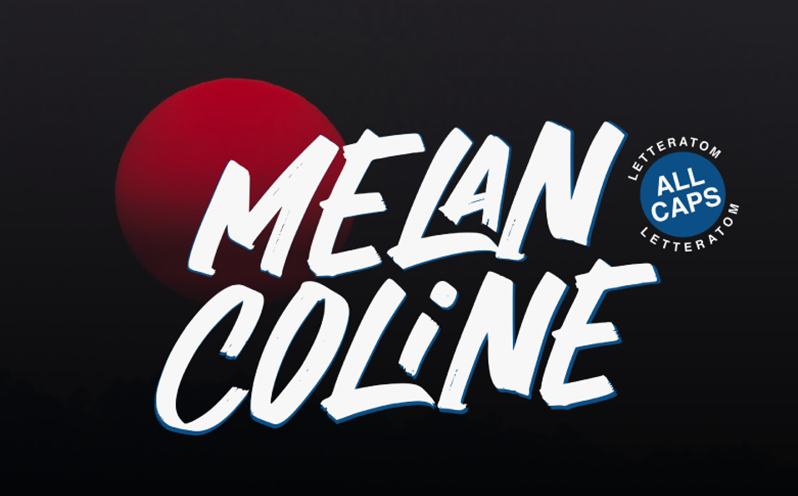
Font name: | Melancoline |
Author: | Kurniawan Eko |
Note by Kurniawan Eko | |
Melancoline is a brush font created with the original, handcrafted quick stroke technique! Consists of all capital letters, gives a very strong and confident impression. Melancoline also includes LA LE LI LO LU LH ligatures in it, for unique requirements for the word you want. You can use Melancoline repeatedly for your design needs such as branding projects, web banner, quotes, homeware designs, product packaging, headlines, simply as a stylish text overlay to any background image, etc. Please contact me before any commercial use. My fonts for free use allowed only in personal project , non-profit and charity use. If you make money from using my fonts, Please purchase a commercial license. Email : letteratom@gmail.com Visit my store https://www.myfonts.com/foundry/atom/ https://fontbundles.net/atom-graphic-studio https://www.creativefabrica.com/designer/letteratom/ instagram @letter_atom Thank you! |